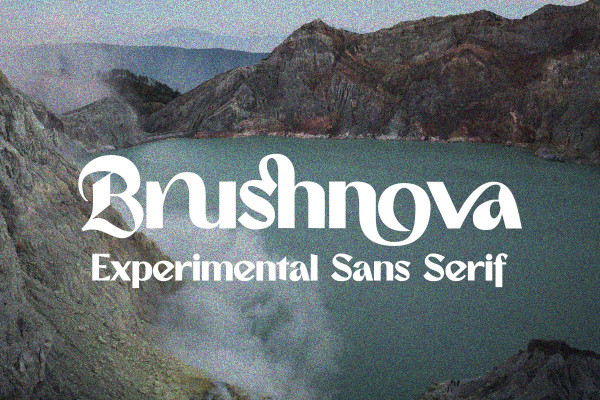
Brushnova Font
Brushnova Font is a sans serif  stunning when combined or separately. This sans serif font style is legible and stunningly designed.  Perfectly fit for branding, logo, wedding things, greeting cards, fashion, lookbook, marketing promotion, anytime you want to look fancy elegant but still casual.